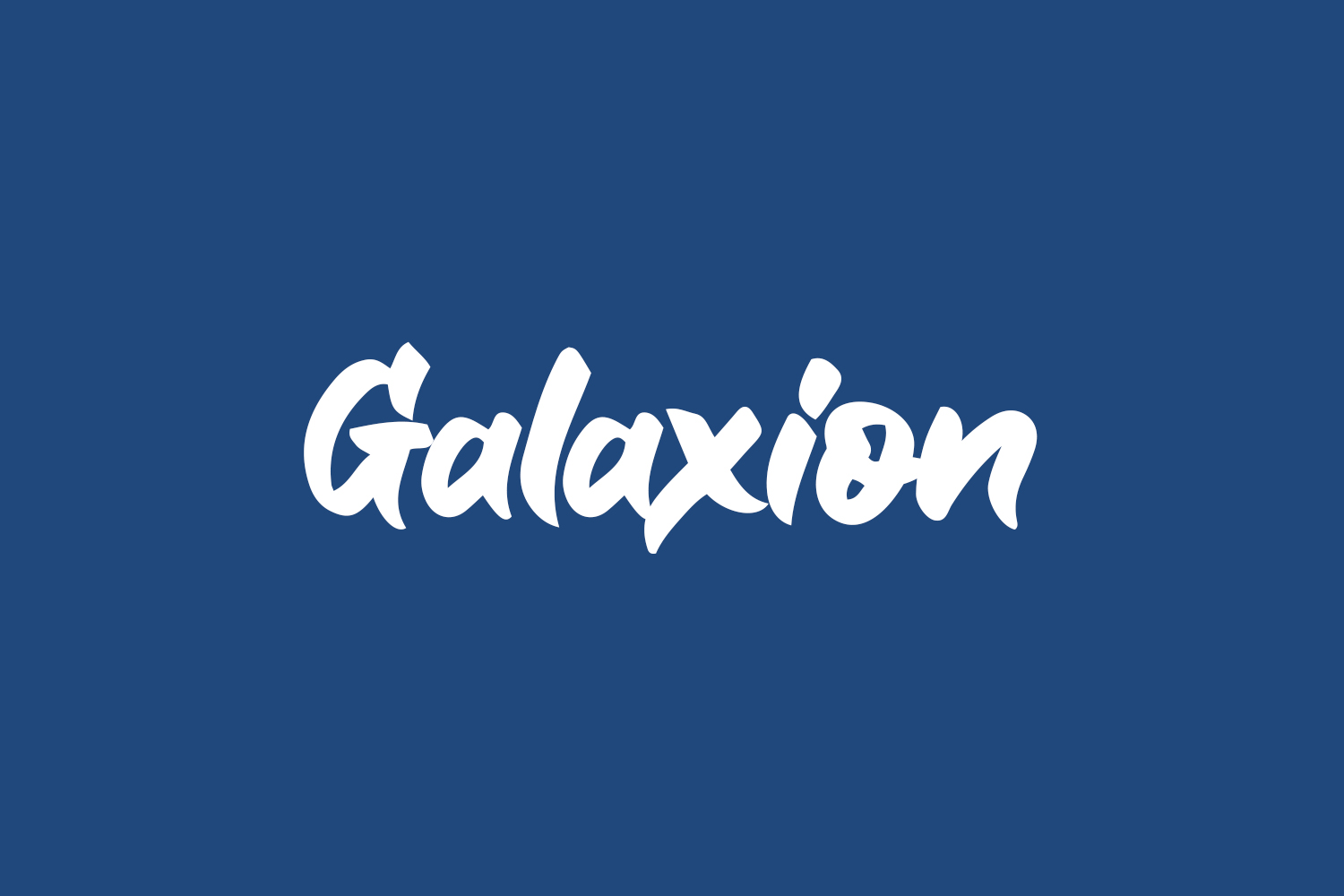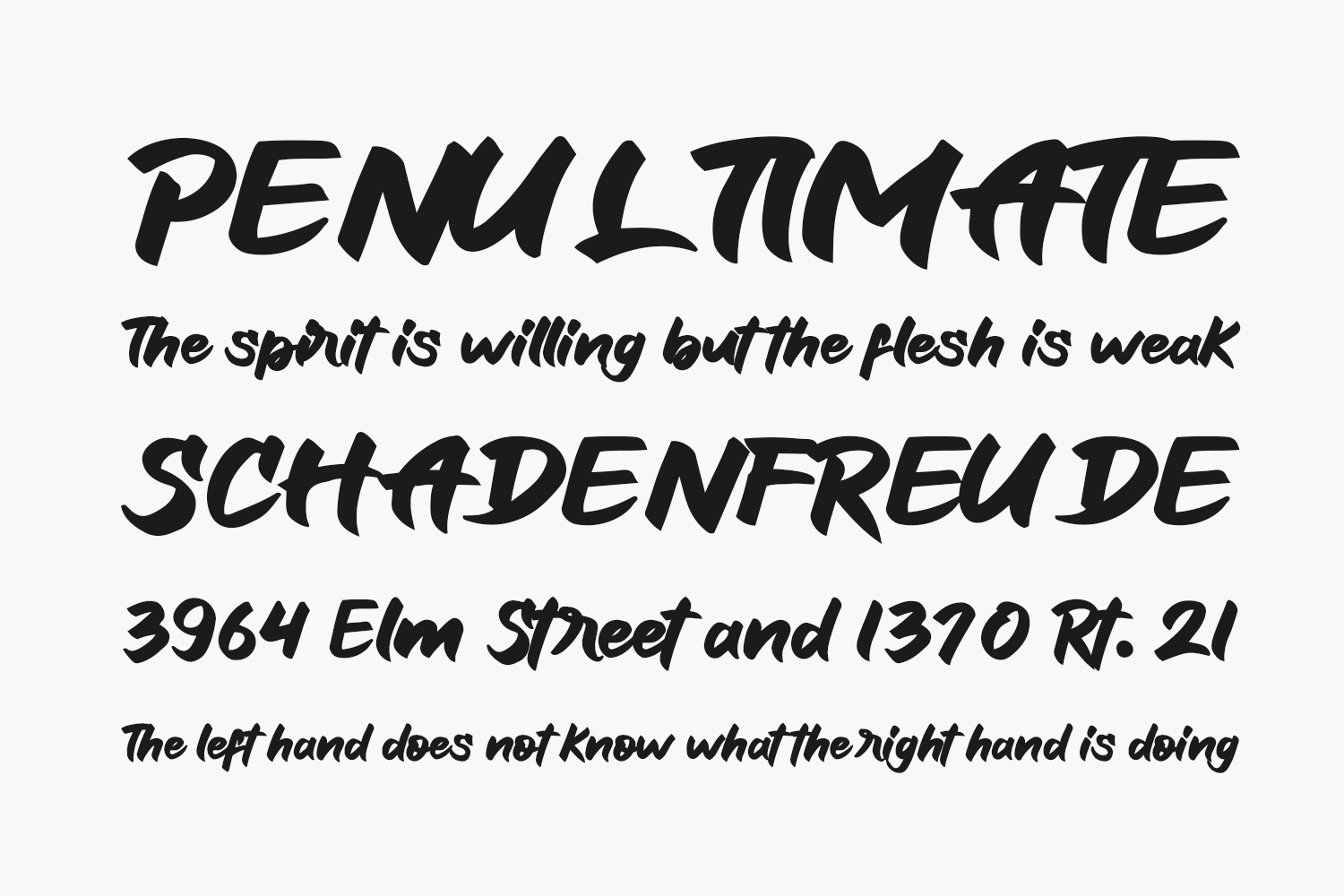
Galaxion Free Font Family is a unique display font. Whether you’re using it for crafting, digital designing, presentations, or greeting card making, it’s perfect. Galaxion Free Font Family was designed by Letterena Studios and is free for personal use only. Please purchase the full version for commercial use.
Galaxion Regular The quick brown fox jumps over the lazy dog
Galaxion Italic The quick brown fox jumps over the lazy dog